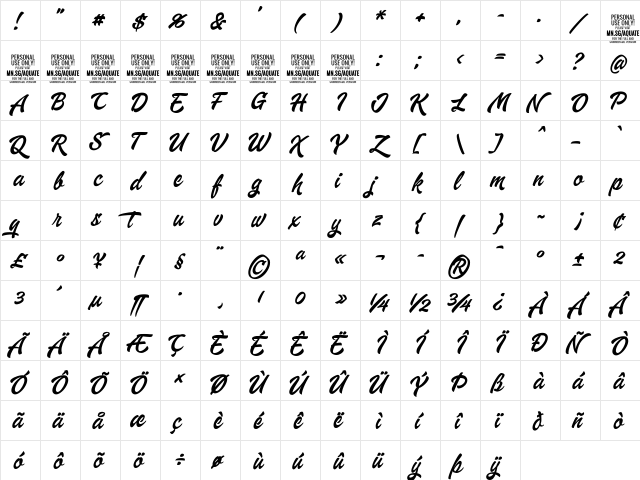
Aquate Script PERSONAL USE ONLY Regular
| Foundry | Mans Greback |
| Designer | Mans Greback |
Design Context for Aquate Script PERSONAL USE ONLY Typeface
Aquate Script PERSONAL USE ONLY brings a calligraphic fluidity to the page — its connecting strokes and expressive curves give it an unmistakably human quality.